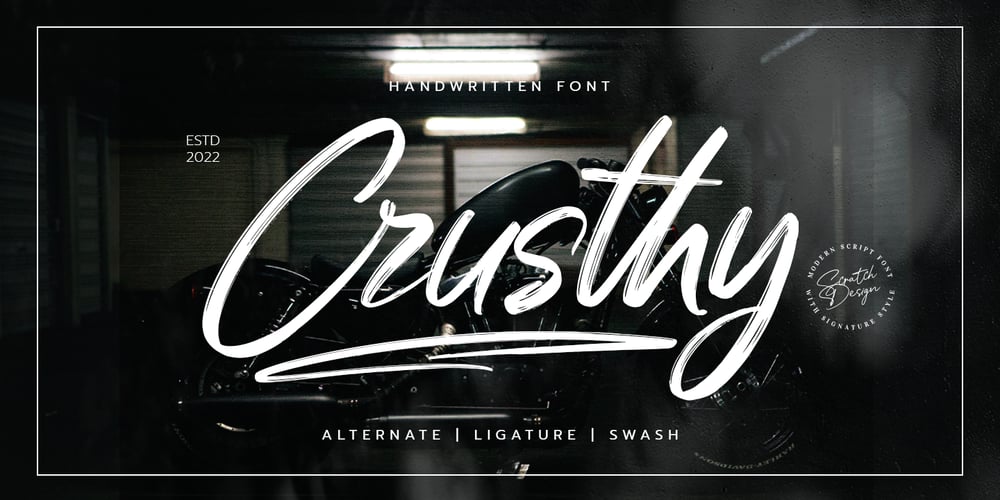
Crusthy Font Family was designed by Gitayogi Irhandi and published by Scratch Design. Crusthy contains 1 styles and family package options. Introducing, Crusthy modern handwriting with signature style and brush texture. This font comes with textured handwriting font so natural and this font looks authentic but still readable and incredibly versatile. This font will look outstanding in any occasion design concept, whether it’s being used on colorful backgrounds or as a stand as a headline in a minimalist background!Crushty has multi-language support, swashes, alternate and ligature dan you can apply it in OpenType mode in adobe photoshop or adobe illustrator. Please enjoy the Crushty Font which makes some stunning designs.